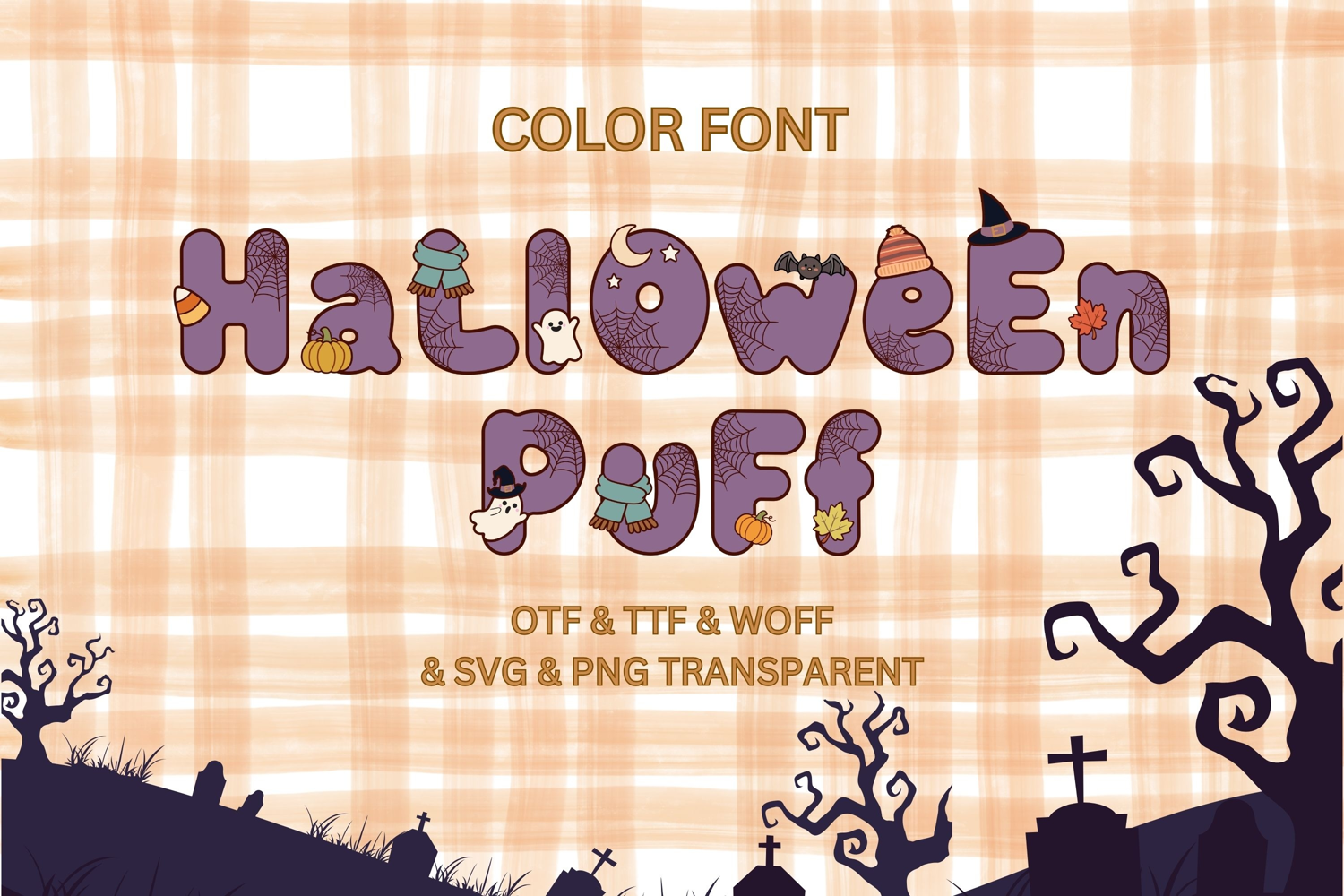
Halloween Puff - Color Font
This spooky season, add a cozy and whimsical touch to your designs with this Halloween-inspired Color Font! Featuring soft, rounded purple letters decorated with charming Halloween details such as spider webs, pumpkins, ghosts, bats, witches’ hats, autumn leaves, candy corn, candles, cozy scarves, and warm fall accents.
The playful puffy lettering gives your projects a cute handcrafted feel while the detailed decorations make every character unique. Perfect for Halloween crafts, seasonal quotes, party invitations, greeting cards, sublimation designs, stickers, T-shirts, social media graphics, printable artwork, and more.